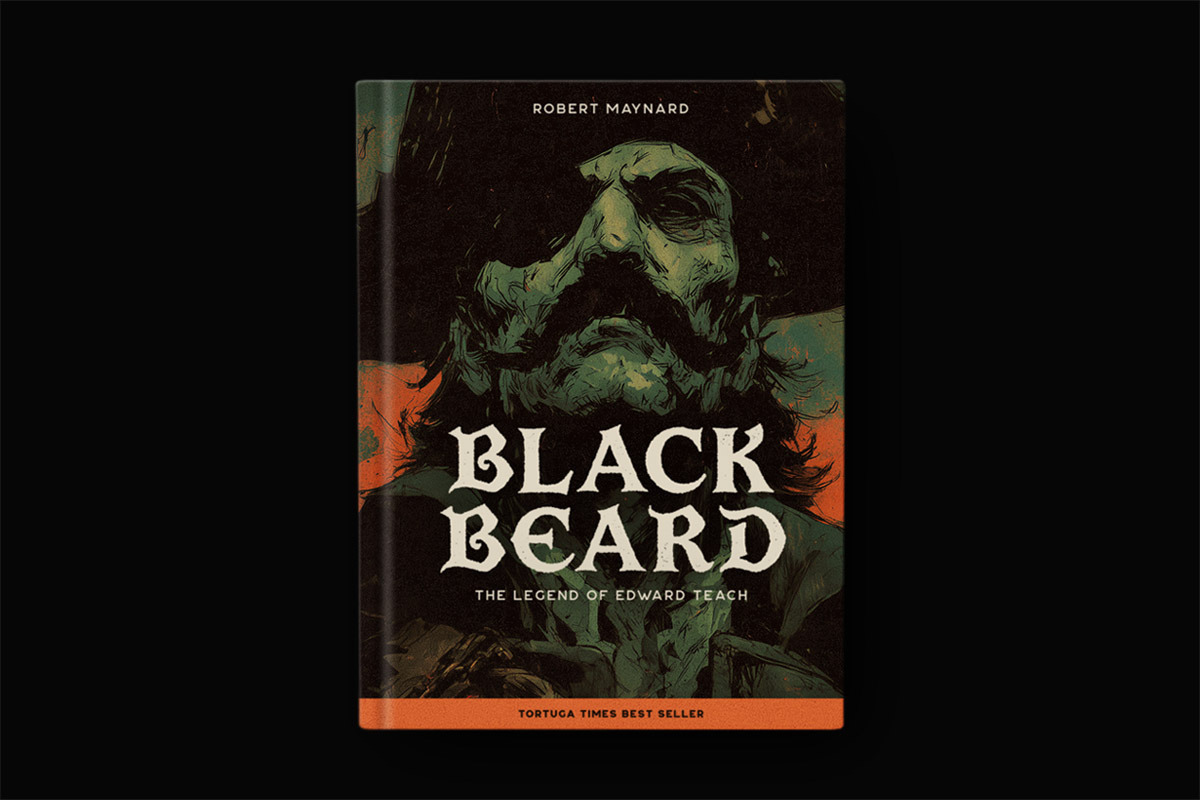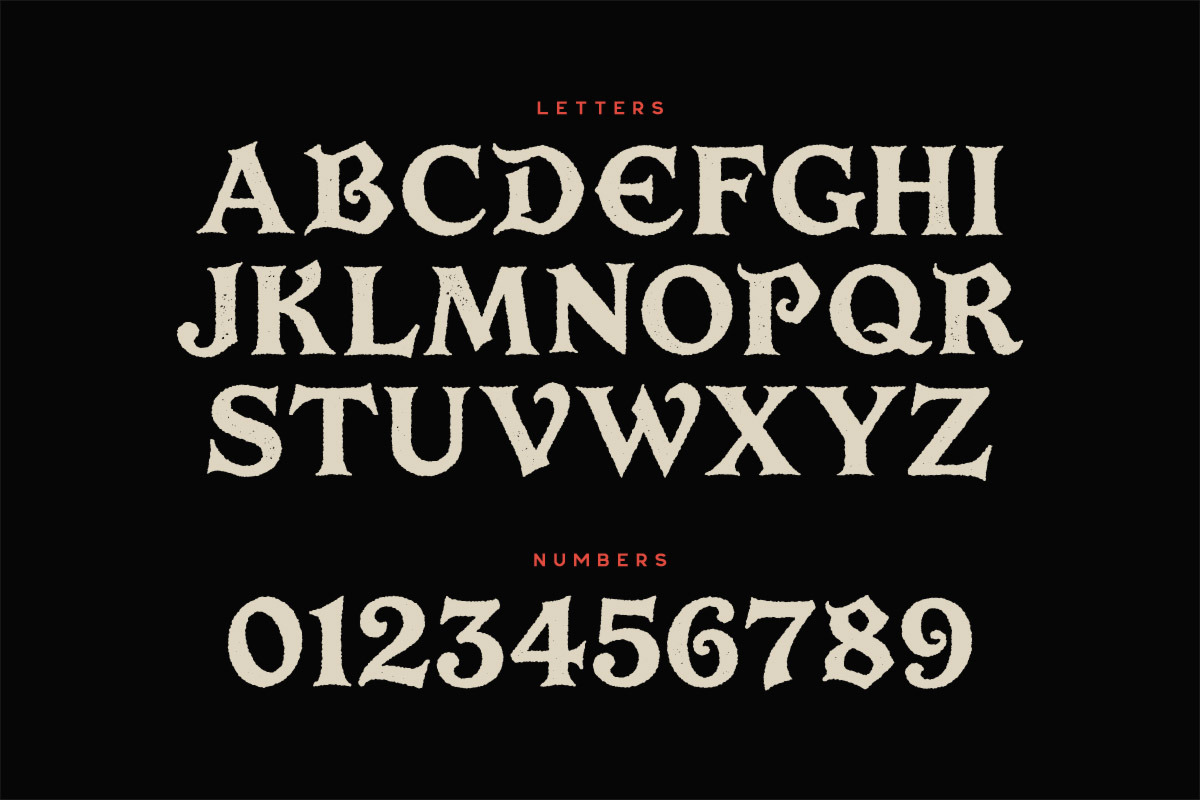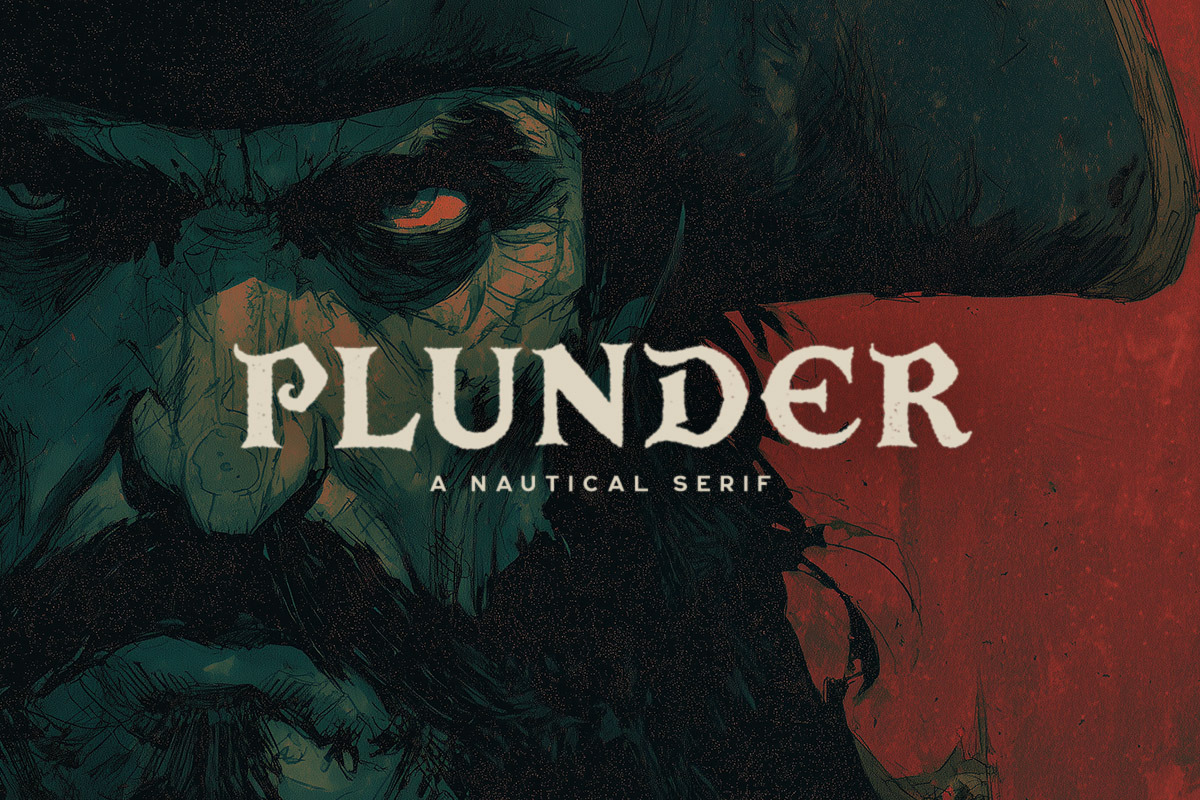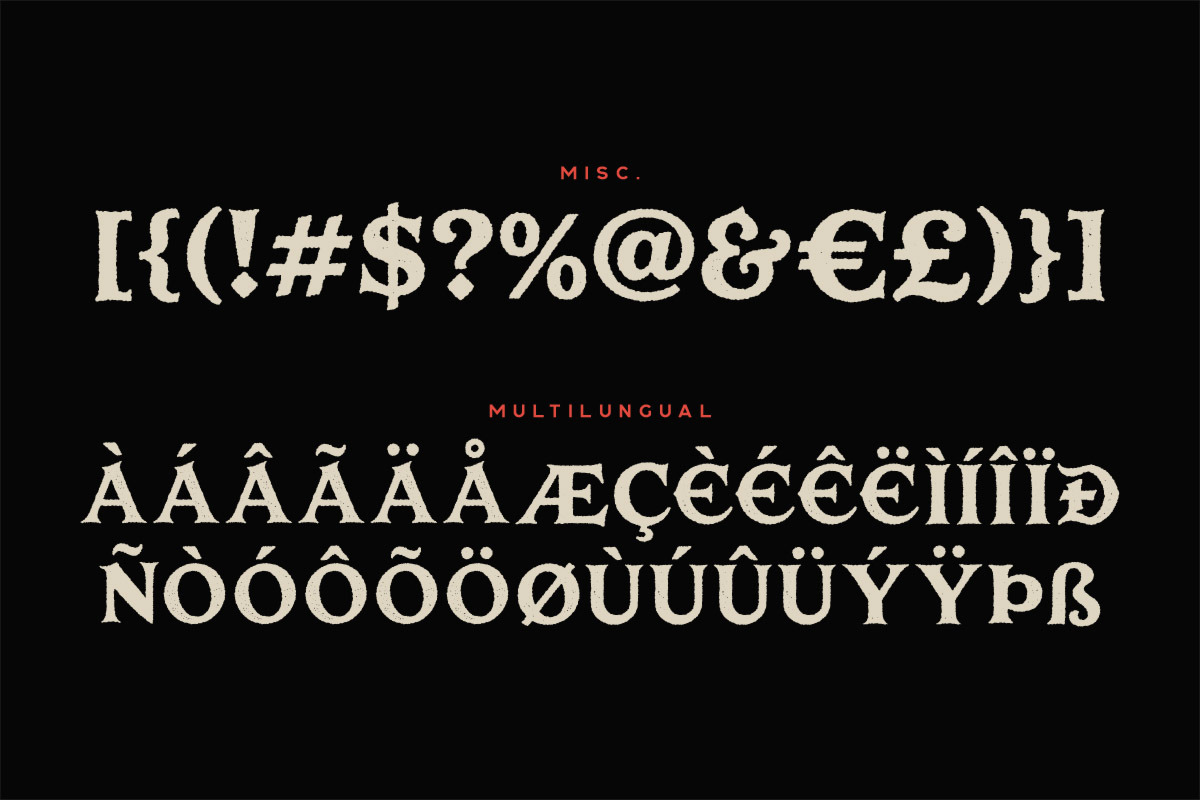
Plunder Typeface
Plunder is a bold nautical serif display font inspired by pirate legends, maritime folklore, and classic adventure book covers. It’s perfect for logos, titles, packaging, posters, and vintage seafaring branding with a rugged old-world feel.